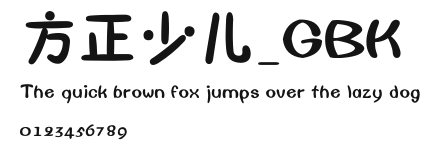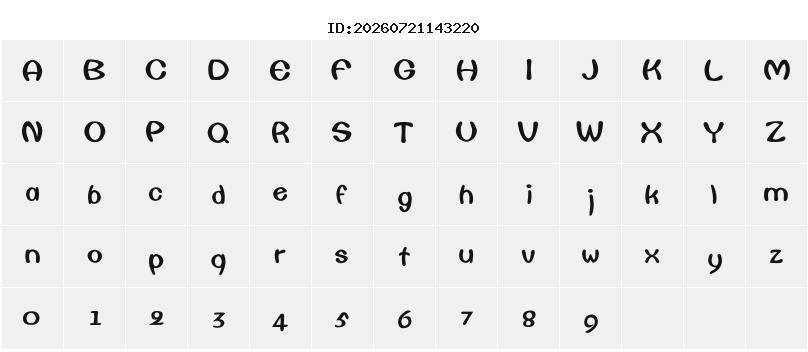
方正少儿_GBK Preview
• Font Name: 方正少儿_GBK
• Font ID: Founder:方正少儿_GBK Regular
• Full Font Name: 方正少儿_GBK
• Version: 2.00
• PostScript Name: FZSEK--GBK1-0
• Character Count: 10619
About 方正少儿_GBK.ttf
方正少儿_GBK.ttf is a modern, elegant sans-serif font designed for ultimate readability and visual harmony. Perfect for branding, headlines, web design, and print materials.